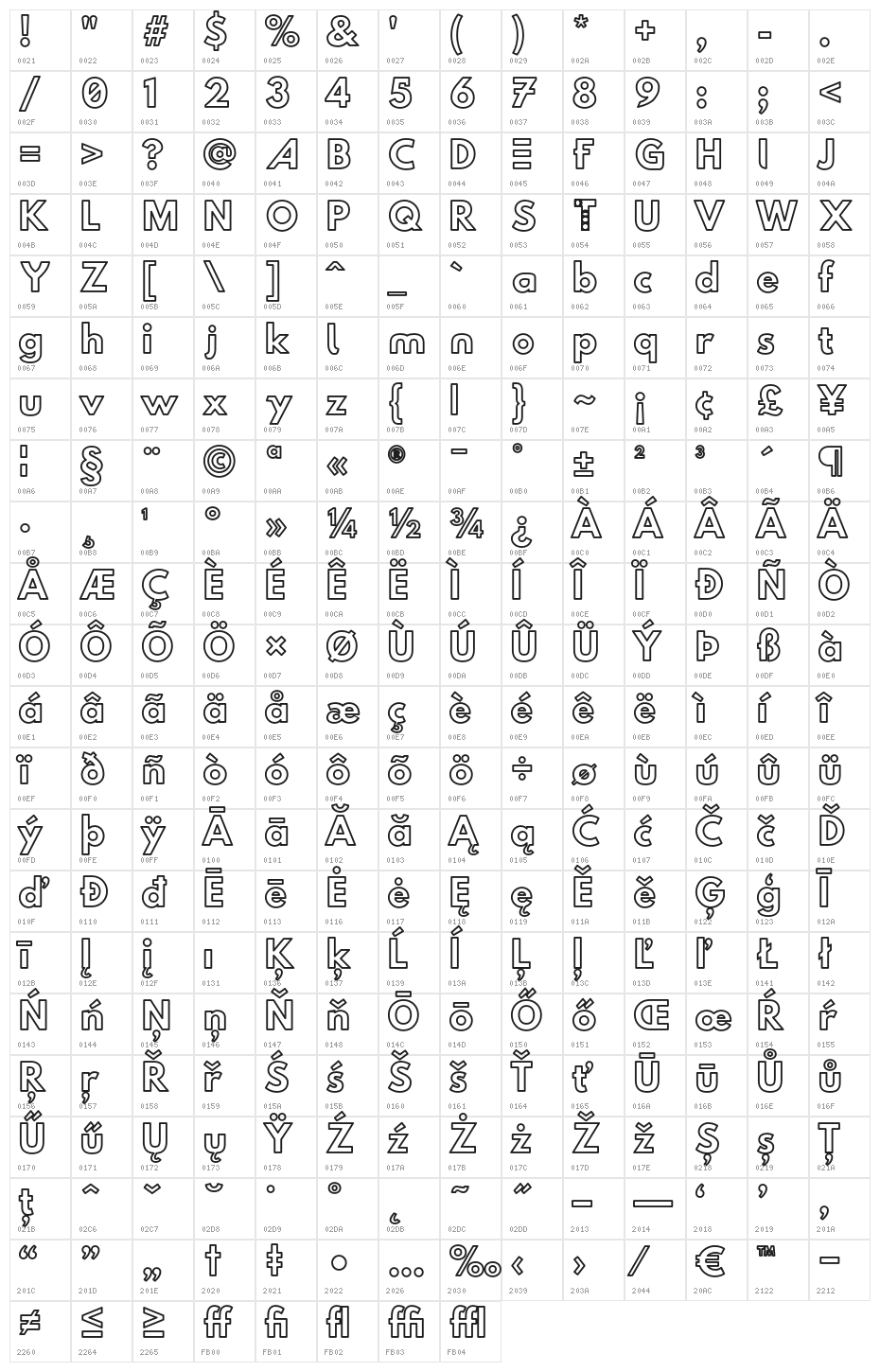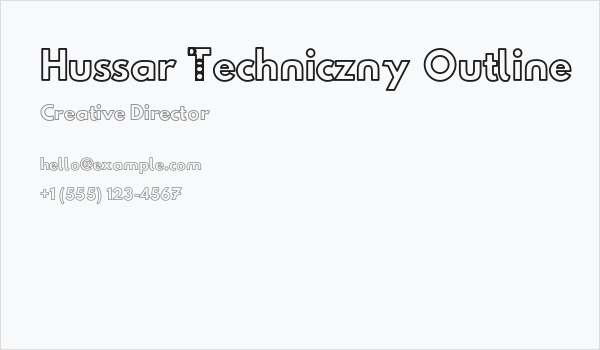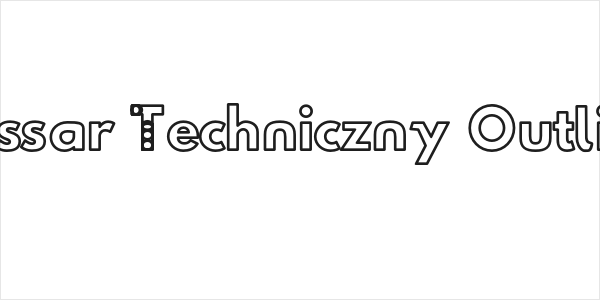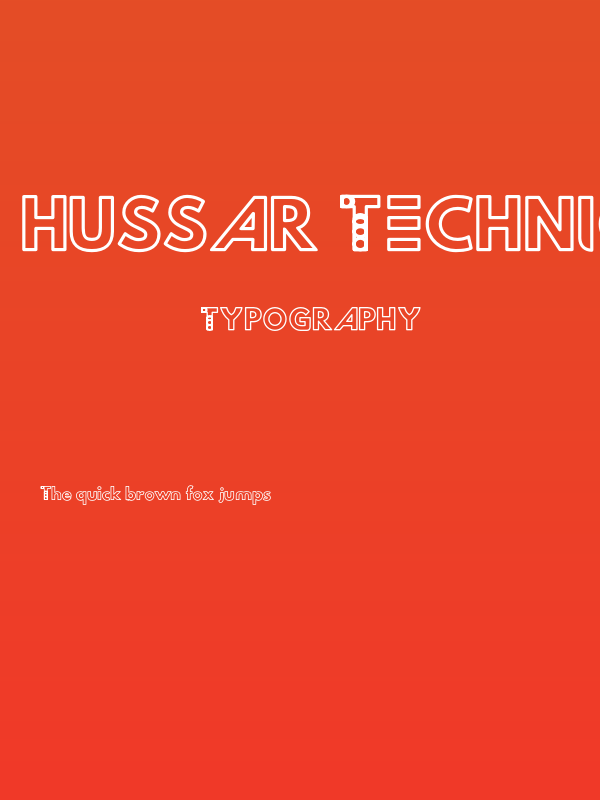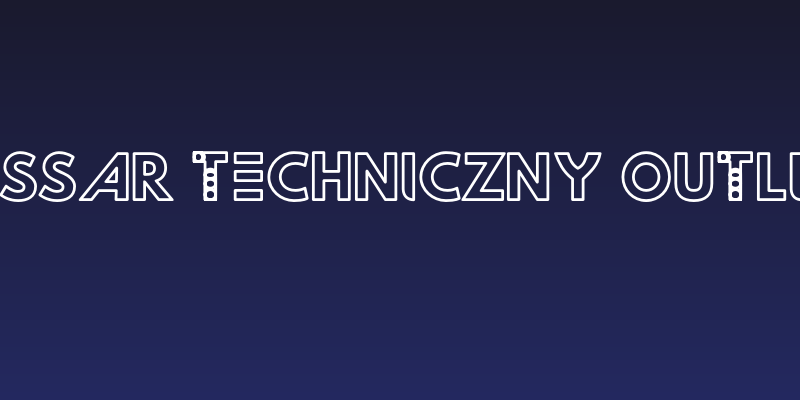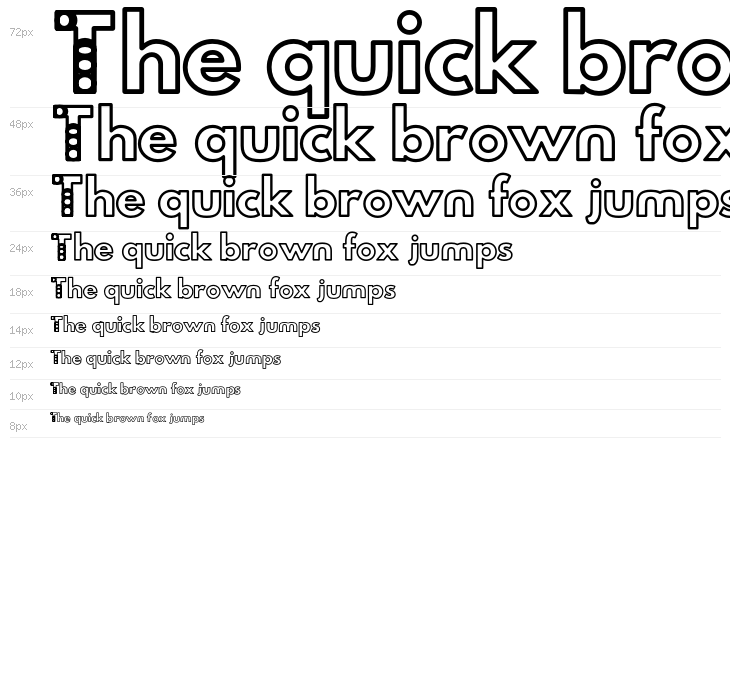
Hussar Techniczny Outline Font
Hussar Techniczny Outline Description
This font features a bold, geometric outline style that emphasizes clarity and modernity. The uppercase and lowercase letters maintain a consistent structure, with clean lines and sharp angles that create a sense of precision. The numerals and special characters follow the same design principles, ensuring uniformity across all glyphs. The outline effect adds a unique dimension, making the characters stand out without being overly complex. This font is ideal for projects that require a contemporary and eye-catching aesthetic.
| Proposed Projects | Ideal for branding, headlines, posters, and digital media where a striking and modern look is desired. |